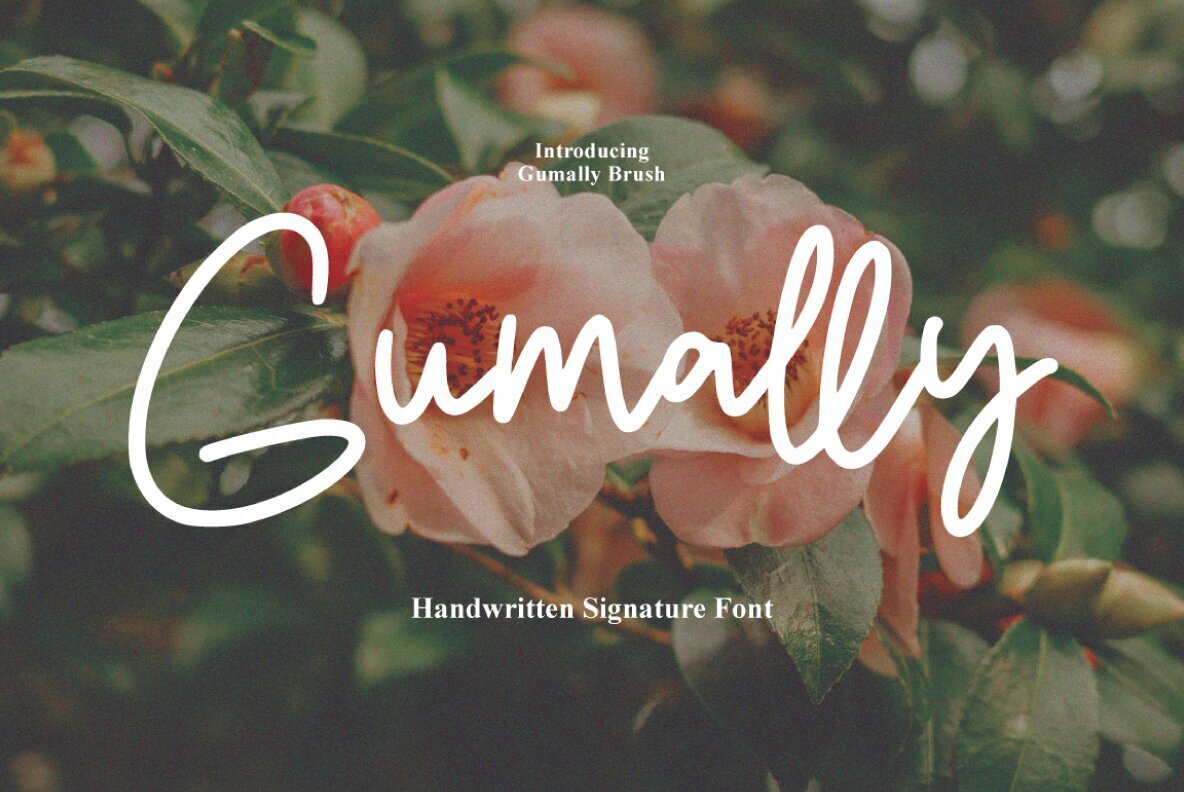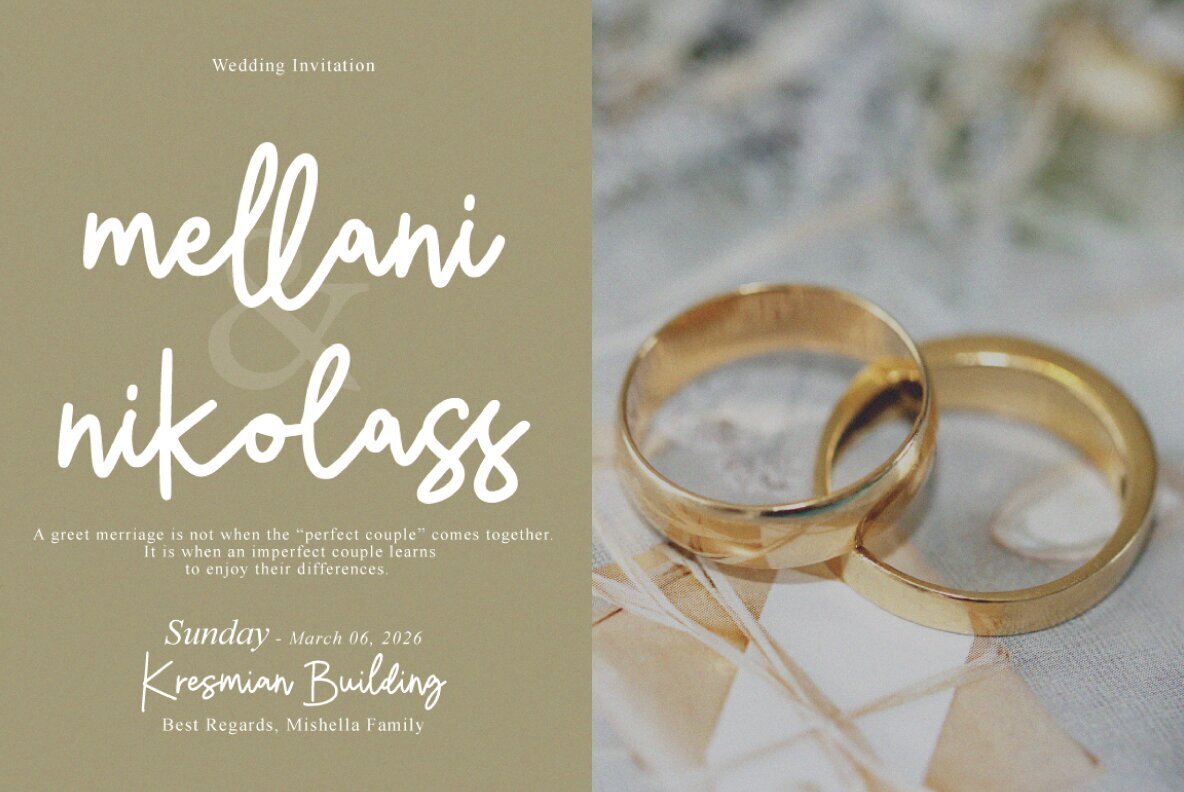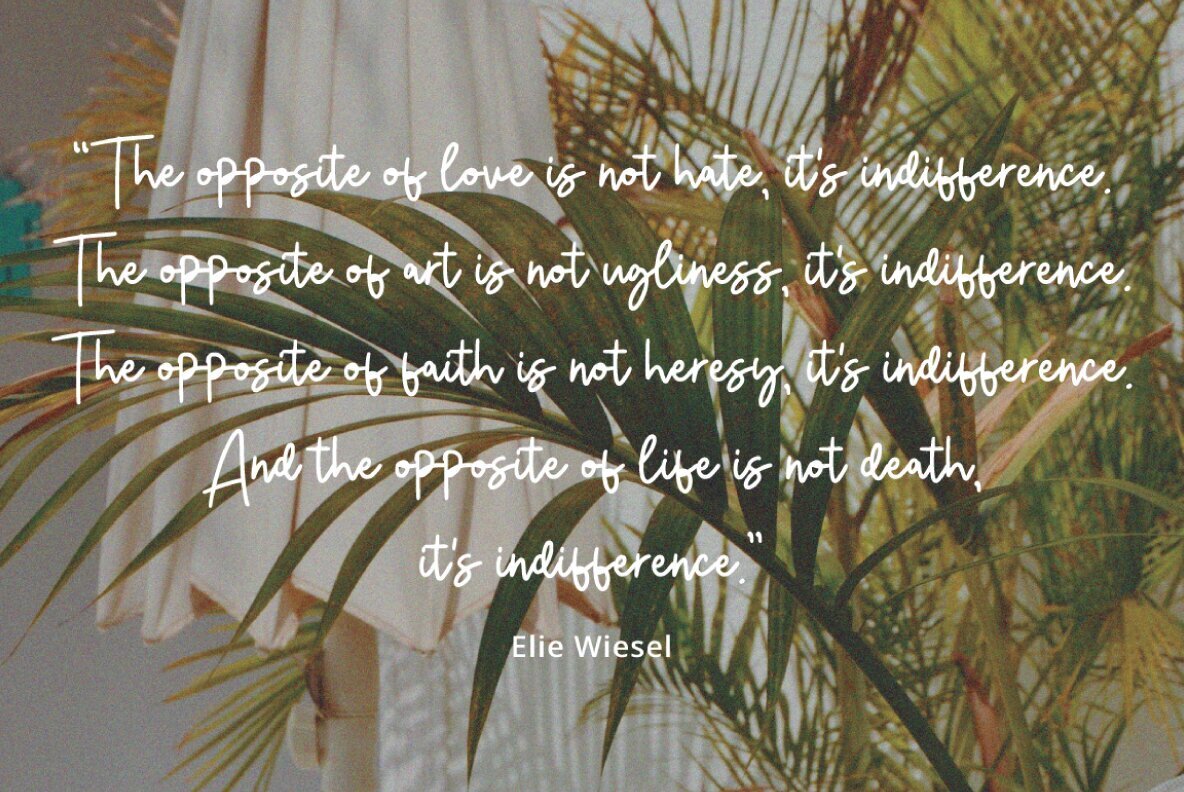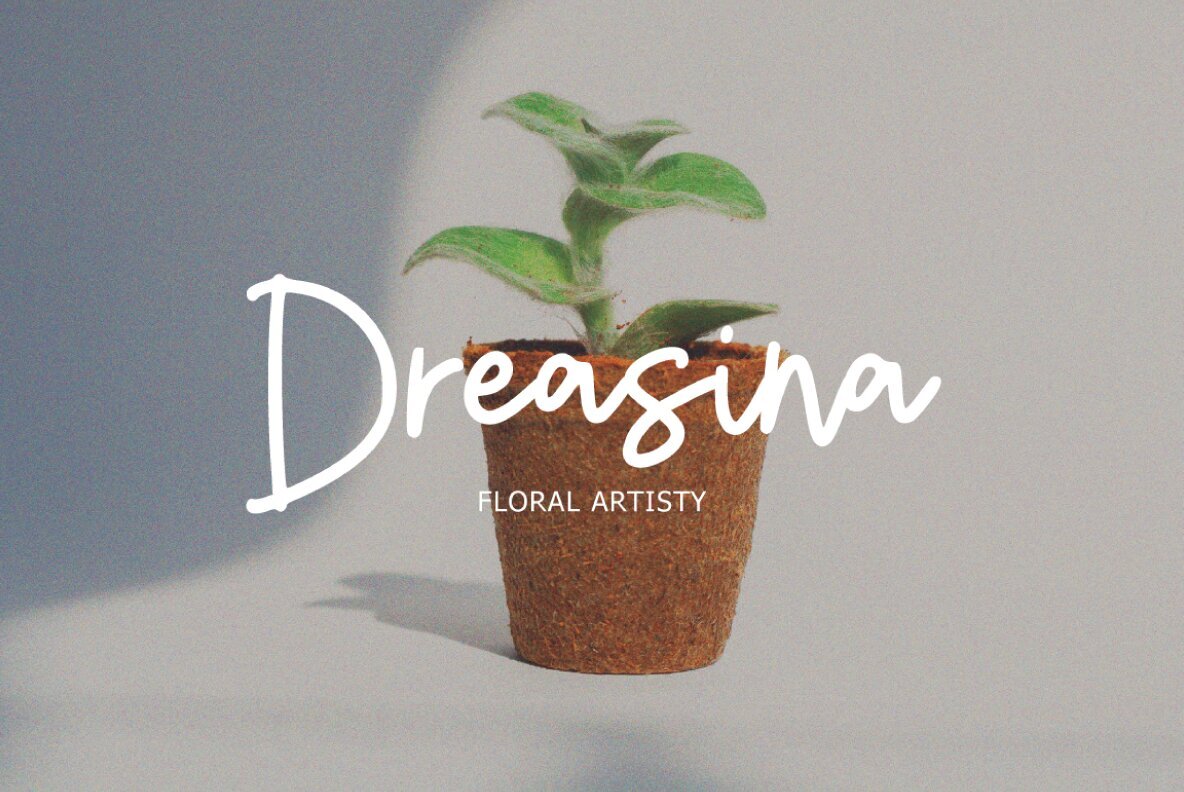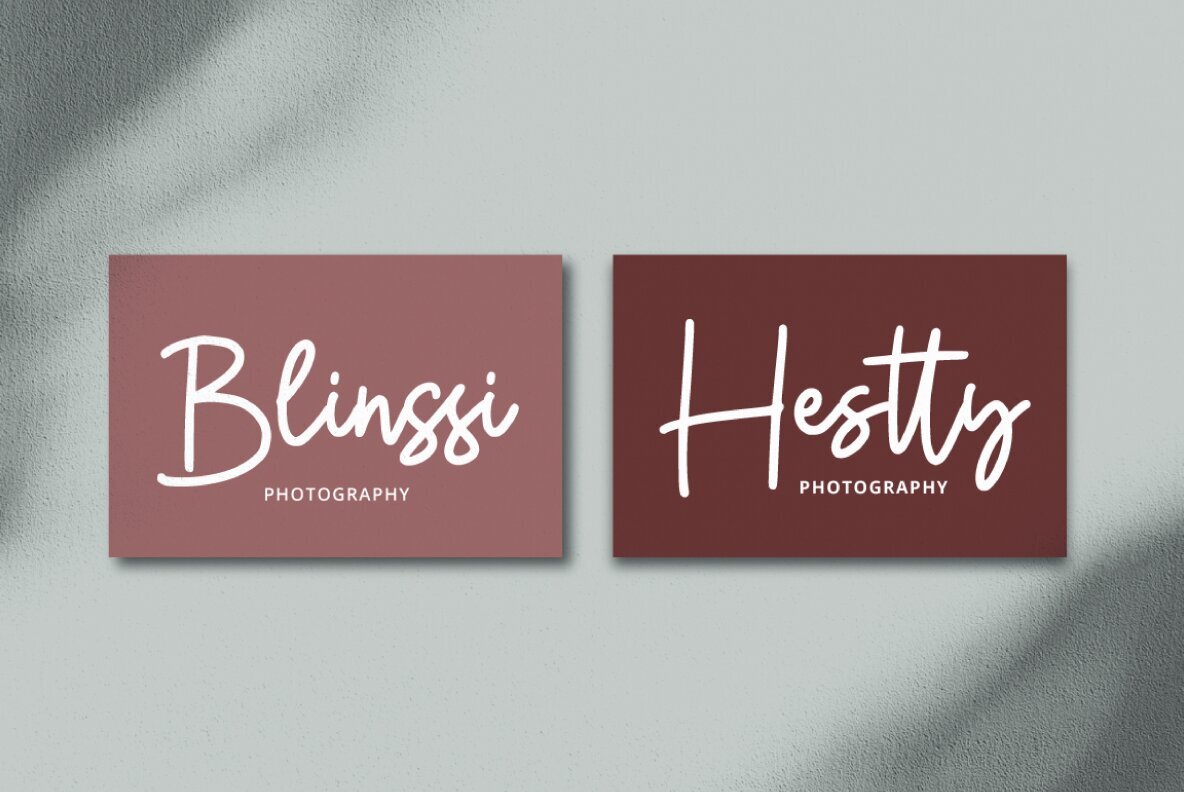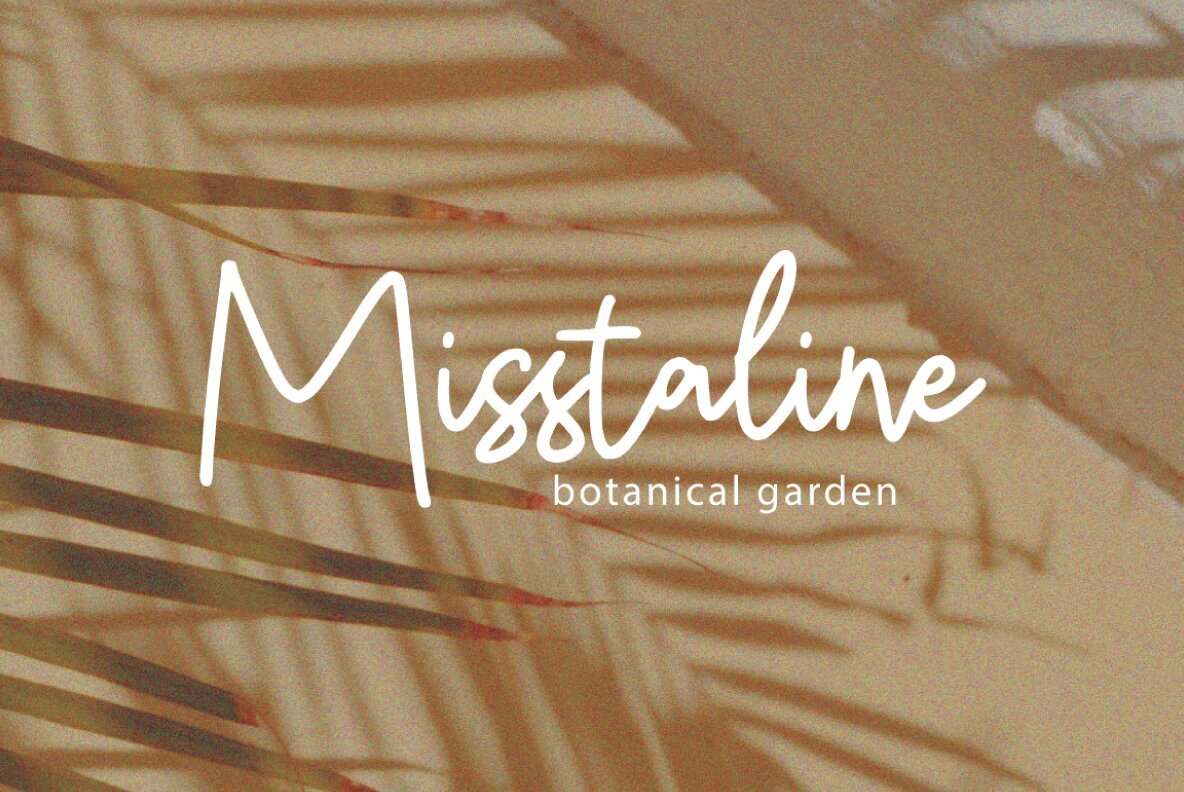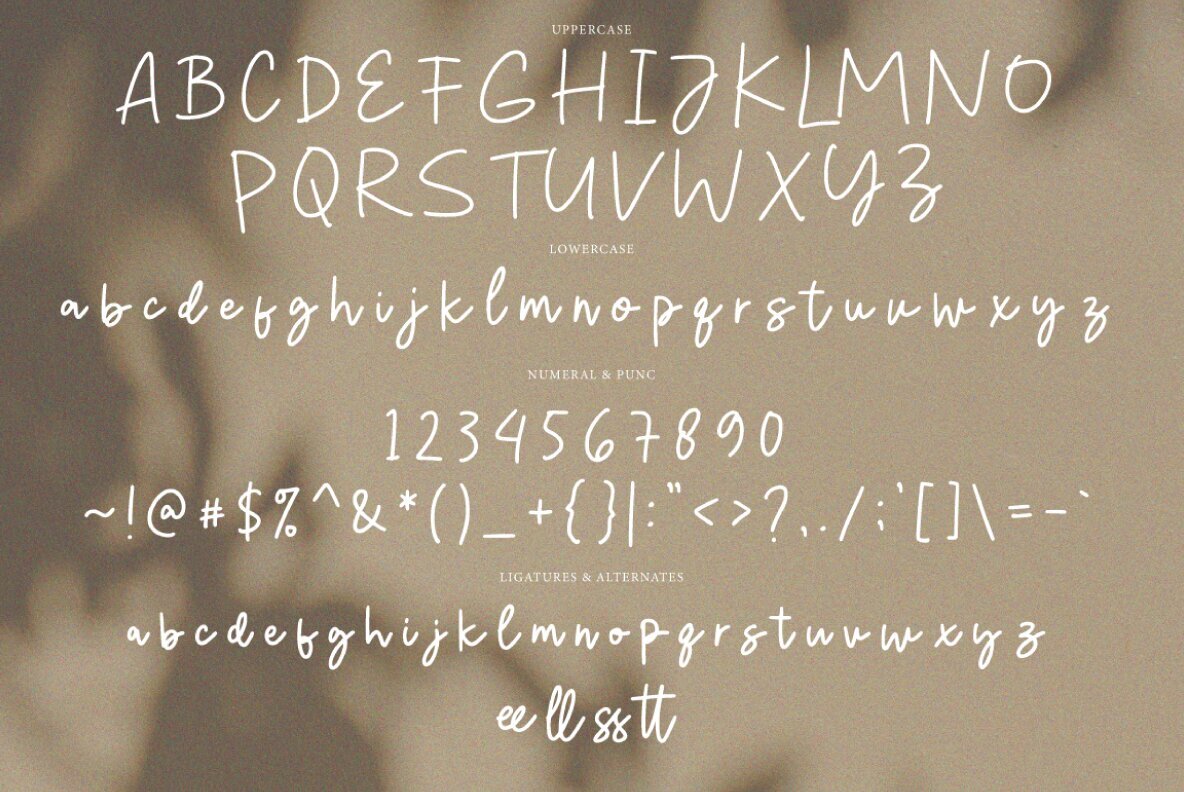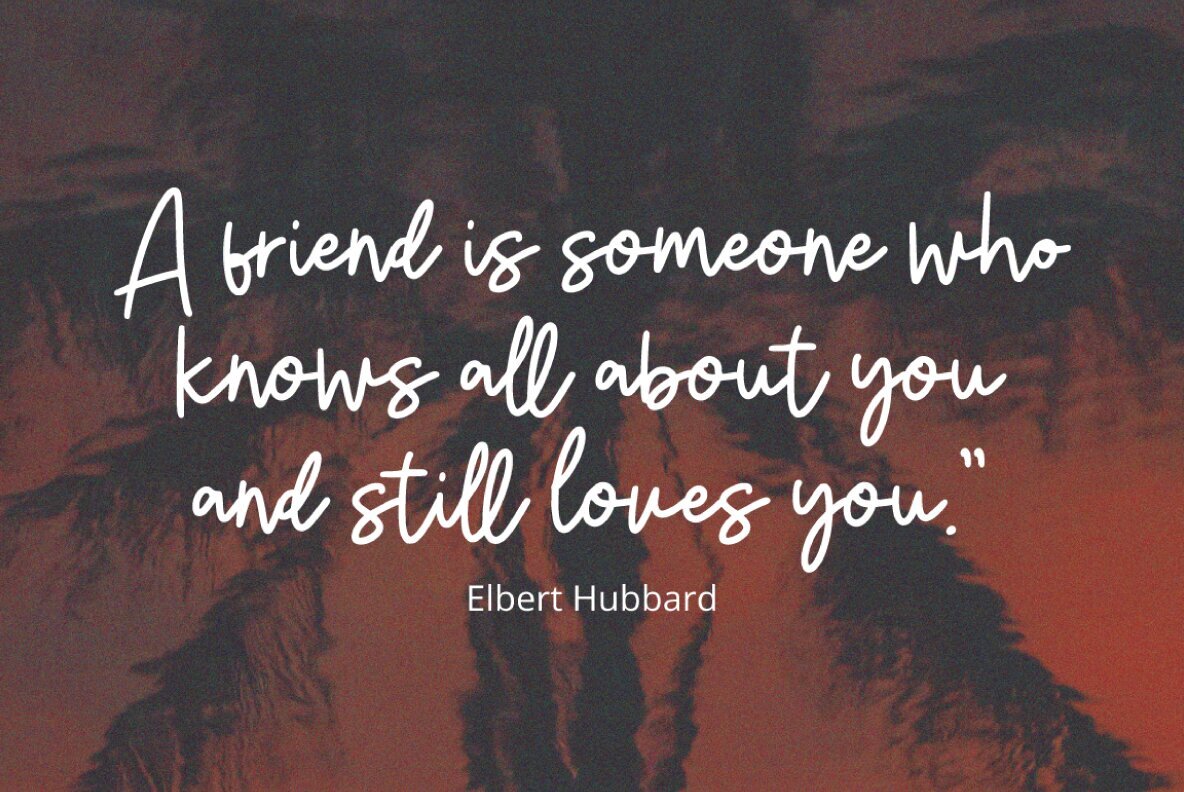
Gumally Signature Font
The Gumally Signature font infuses elegance and expressive flair into any project. Featuring a handmade signature style filled with decorative characters and a graceful baseline, it enhances invitations, greeting cards, branding materials, business cards, quotes, and posters. This font includes over 200 distinctive glyphs, offering a variety of OpenType features. Such features include Swash, Stylistic Sets, Stylistic Alternates, and Ligatures, all accessible via OpenType savvy programs like Adobe Illustrator, InDesign, Photoshop, Corel Draw, and Microsoft Word. Additionally, the font is encoded with PUA Unicode, enabling easy access to alternate characters for designers and craftsmen. For users without OpenType-compatible software like Adobe Illustrator and CorelDraw, alternate glyphs remain accessible via Font Book on Mac or Character Map on Windows, ensuring flexibility across different platforms.Gumally Signature: Expressive Handmade Typography